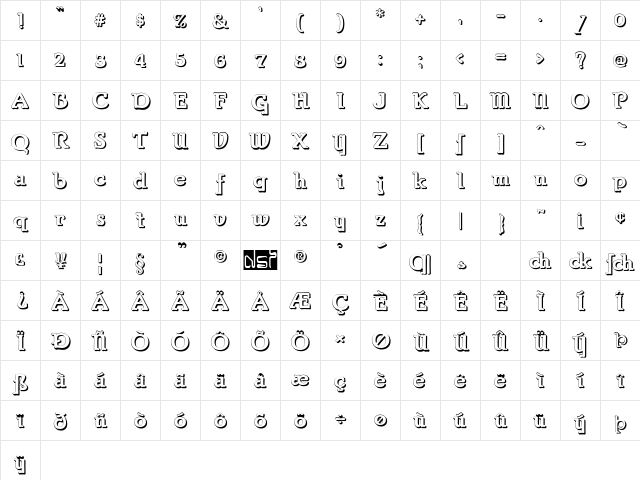
Complete Parsons Shadow Regular glyph index. Displaying only characters natively supported by Parsons Shadow Regular font.
Parsons Shadow is built around its visual character rather than neutral utility - its distinctive forms are designed to make an impression at display sizes.
Font Pairing: Pair with a clean neutral sans-serif for body copy to let Parsons Shadow's character lead without overwhelming the composition.
Pro Tip: Use Parsons Shadow exclusively at display sizes - it was designed to be seen, not read at length. Let a neutral companion handle body copy.